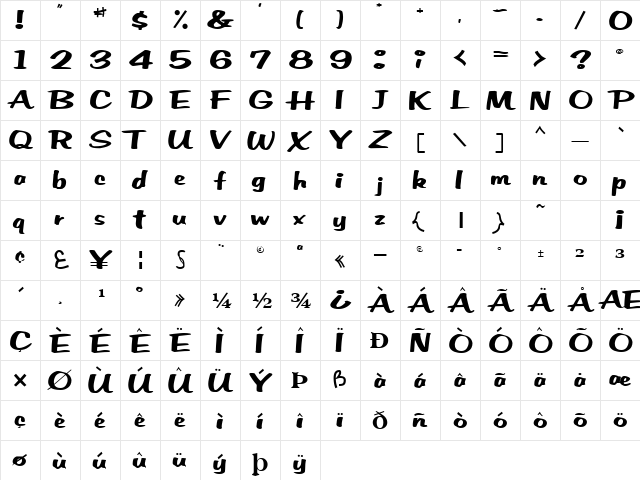
Em Regular Font Preview
Em Regular
Em Regular Font Details
Design Context for Em Typeface
Em is a composed and adaptable typeface that performs quietly and consistently across a wide range of design contexts.